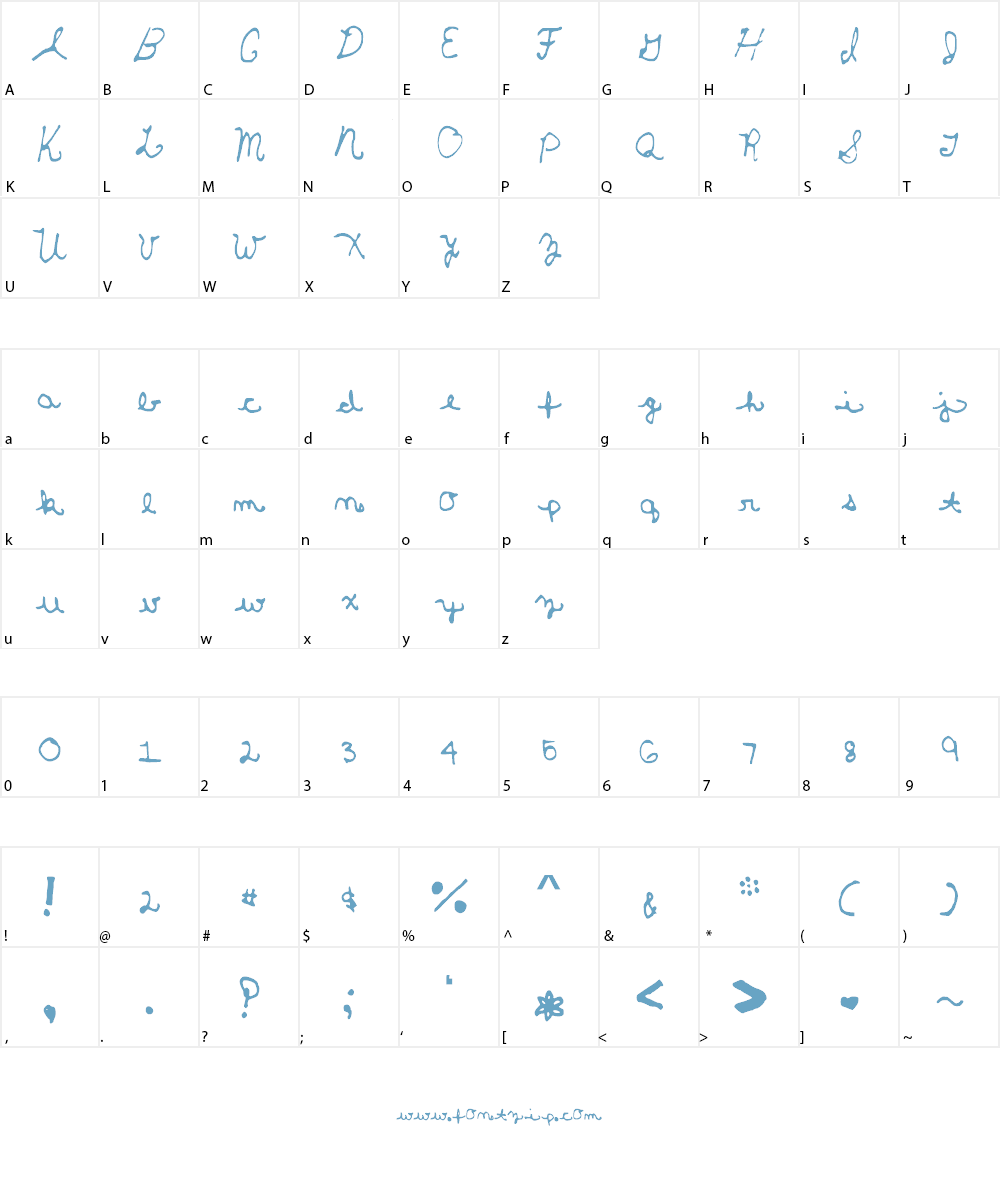
This font was inspired by fonts like Soymilk, Wintermelon, and Arsenale White. I love the simplicity and cuteness of it, so I attempted to make my own. Also, the name is from Carly Rae Jepsen's song, "Tiny Little Bows", and I thought the name of it fit this font.